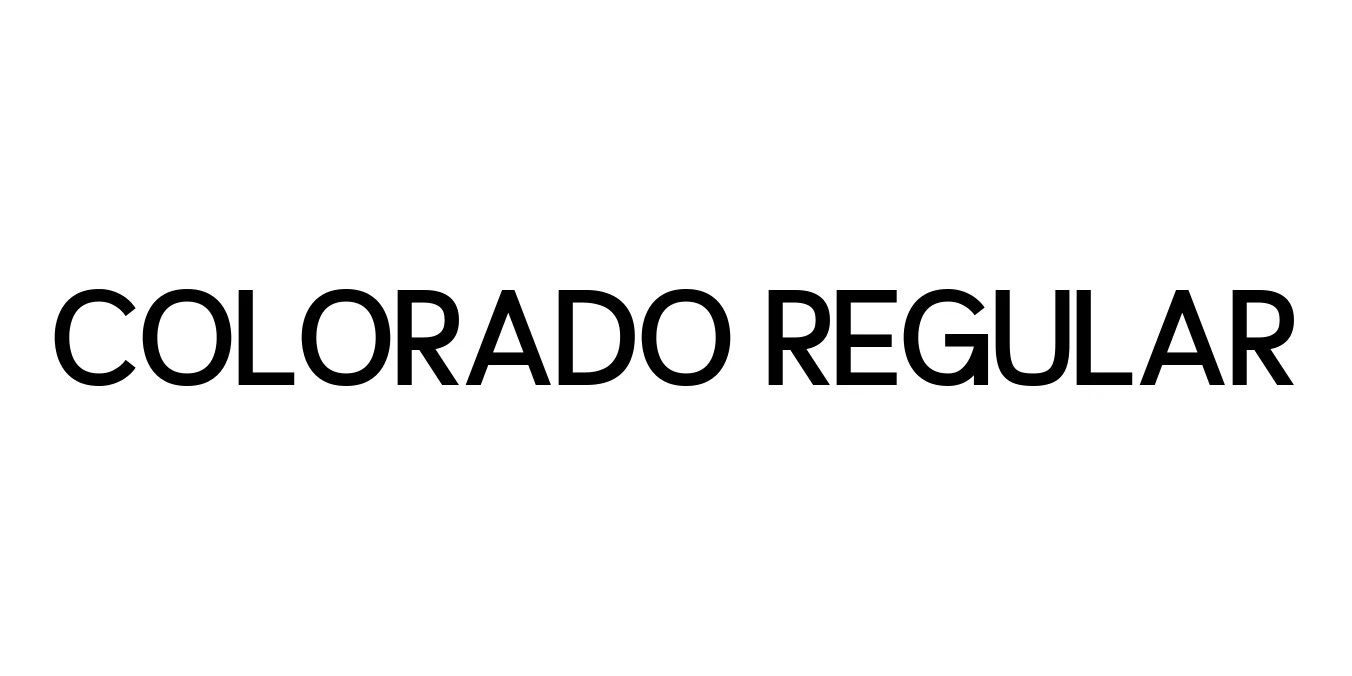
Colorado Regular
Designed by Vladimir Nikolic
| Category | Display / Sans Serif |
| Designer | Vladimir Nikolic |
Colorado Regular is a versatile display typeface designed by Vladimir Nikolic. It is crafted with a focus on geometric balance and clean lines, making it an excellent choice for modern design projects that require a touch of authority and clarity. The font's uniform stroke weight and precise construction allow it to maintain legibility across various sizes, from small print to large-scale digital displays.
The font has gained popularity among graphic designers for its ability to bridge the gap between contemporary minimalism and classic industrial aesthetics. Whether used in corporate branding, editorial layouts, or sophisticated web interfaces, Colorado Regular provides a solid foundation for any typographic hierarchy. Its professional appearance makes it a go-to asset for designers seeking a reliable and stylish display solution.
Colorado Regular Best Uses
Creates a strong and memorable brand identity with its clean, sharp lines.
Perfect for clear and impactful website sections or magazine titles.
Ensures high visibility and readability from a distance in advertising.
Adds a professional and modern touch to personal or corporate branding.